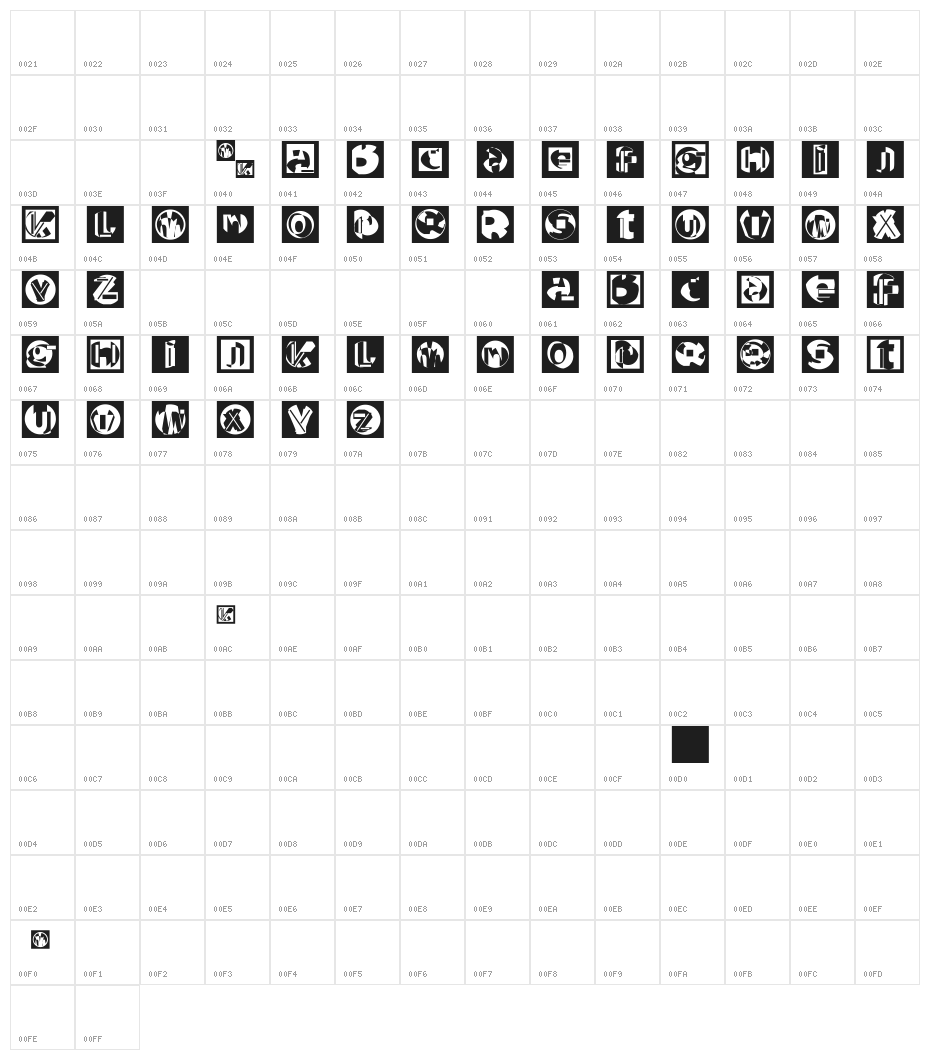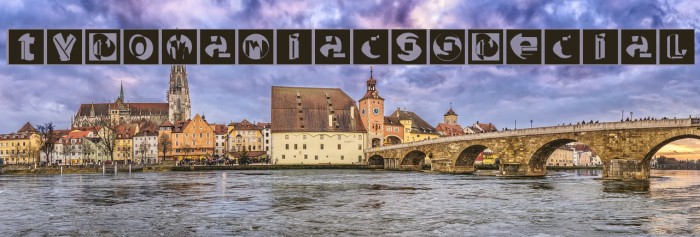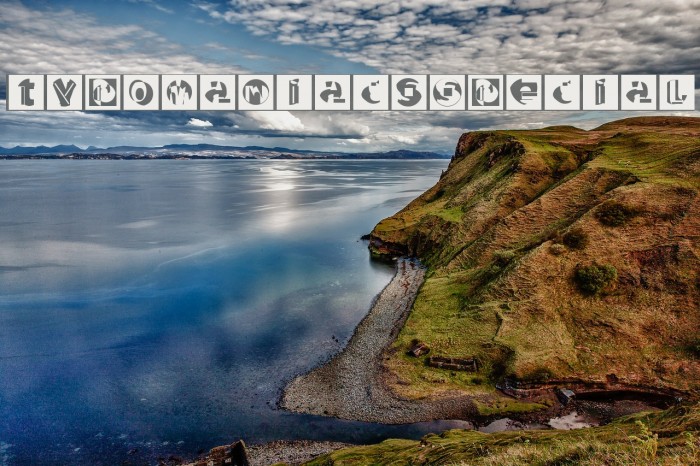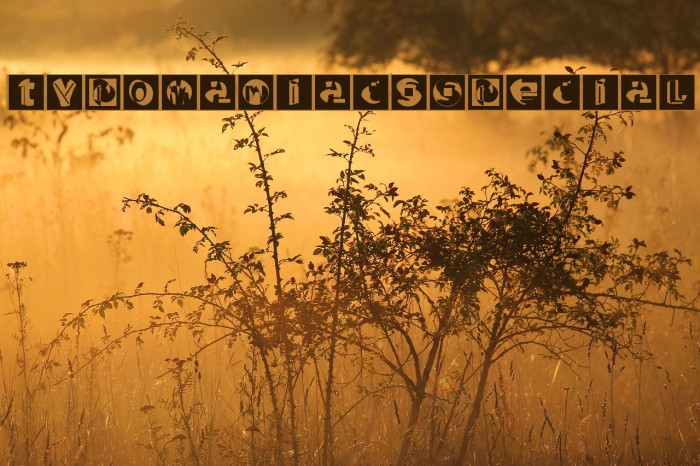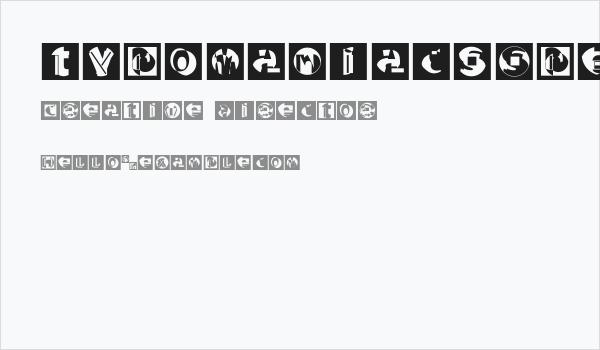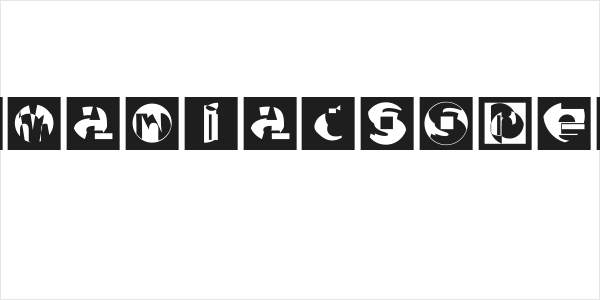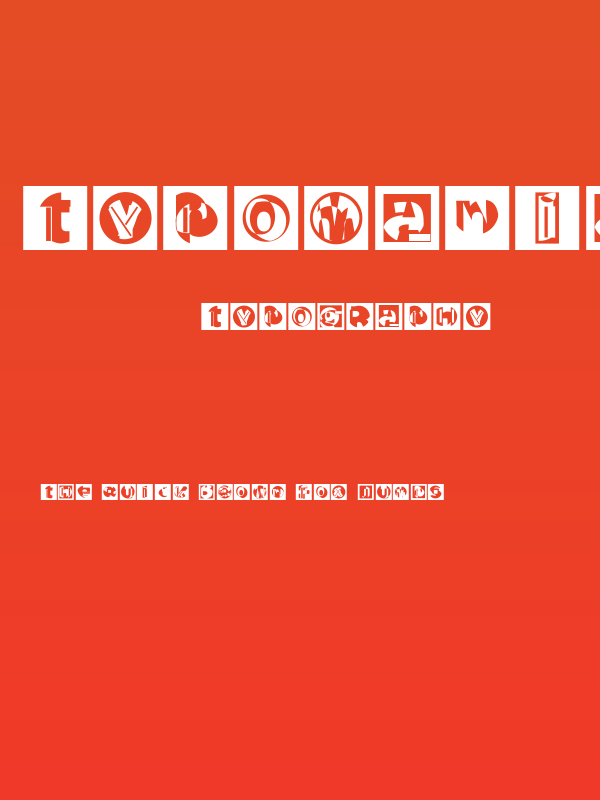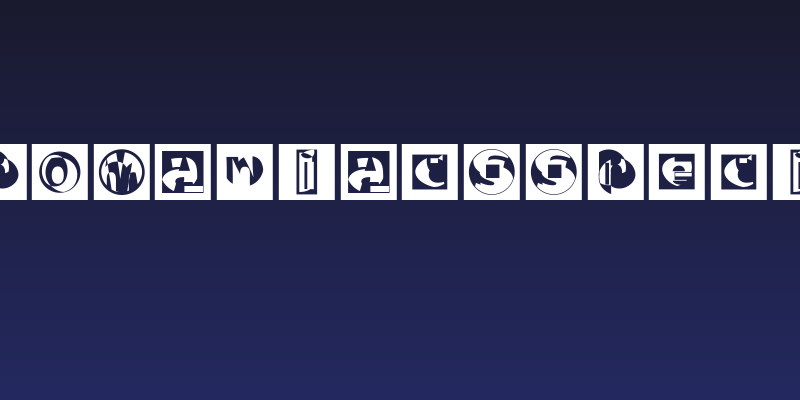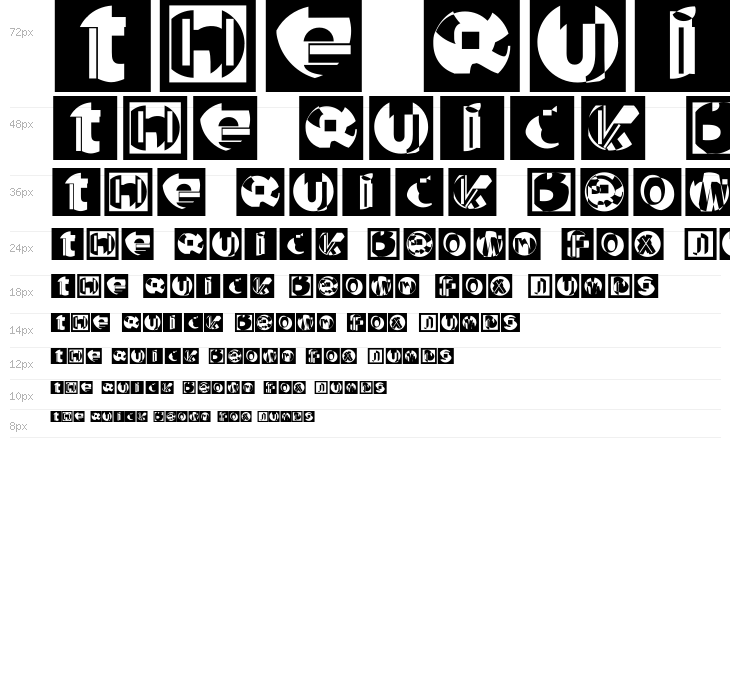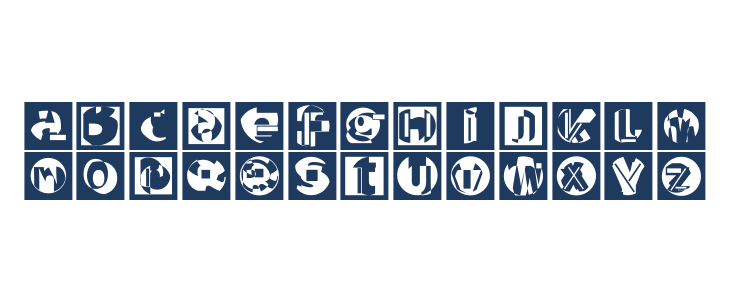
TypomaniacsSpecial Font
TypomaniacsSpecial Description
This font features a highly decorative and abstract style, with each character enclosed within a square or circular shape. The letters are creatively distorted and filled with unique patterns, giving them a playful and artistic appearance. The bold and dynamic design makes it stand out, with each character offering a distinct visual experience. The font's high contrast and varied shapes make it suitable for eye-catching designs. It is not intended for readability in long texts but rather for creative and expressive uses where visual impact is key.
Use CaseLogos, Headlines, Artistic projects
Proposed ProjectsIdeal for artistic posters, album covers, creative branding, and unique logo designs.